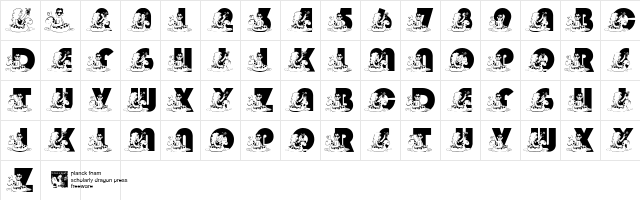
pf_floating_in_pool Regular
| Designer | David E. Howerton |
Design Context for pf_floating_in_pool Typeface
pf_floating_in_pool is a composed and adaptable typeface that performs quietly and consistently across a wide range of design contexts.